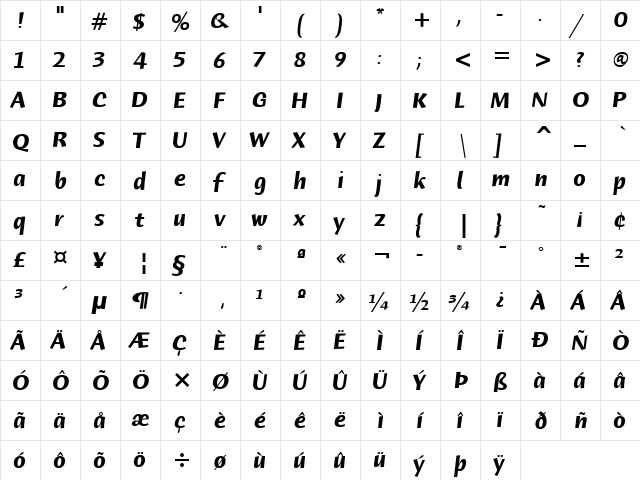
Humana Sans ITC Bold Italic
Design Context for Humana Sans ITC Typeface
Humana Sans ITC offers clean, dependable letterforms without strong stylistic allegiance, making it a practical choice for designers who need flexibility. Its italic angle brings a sense of urgency and motion to the letterforms. The heavy weight commands attention and anchors typographic hierarchies.
Pro Tip: Use Humana Sans ITC for emphasis, pull quotes, and subheadings where its slanted energy can add rhythm to the layout.